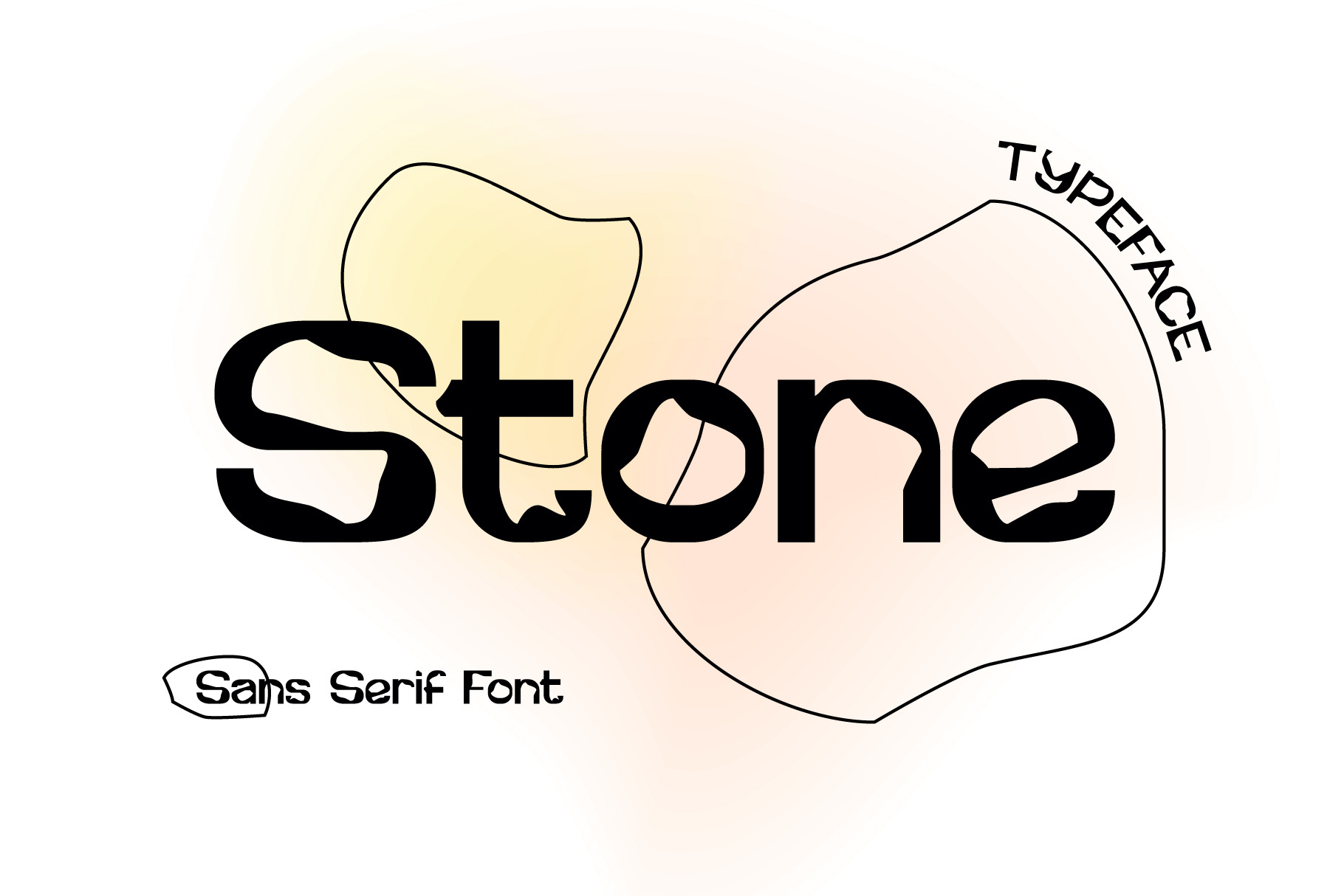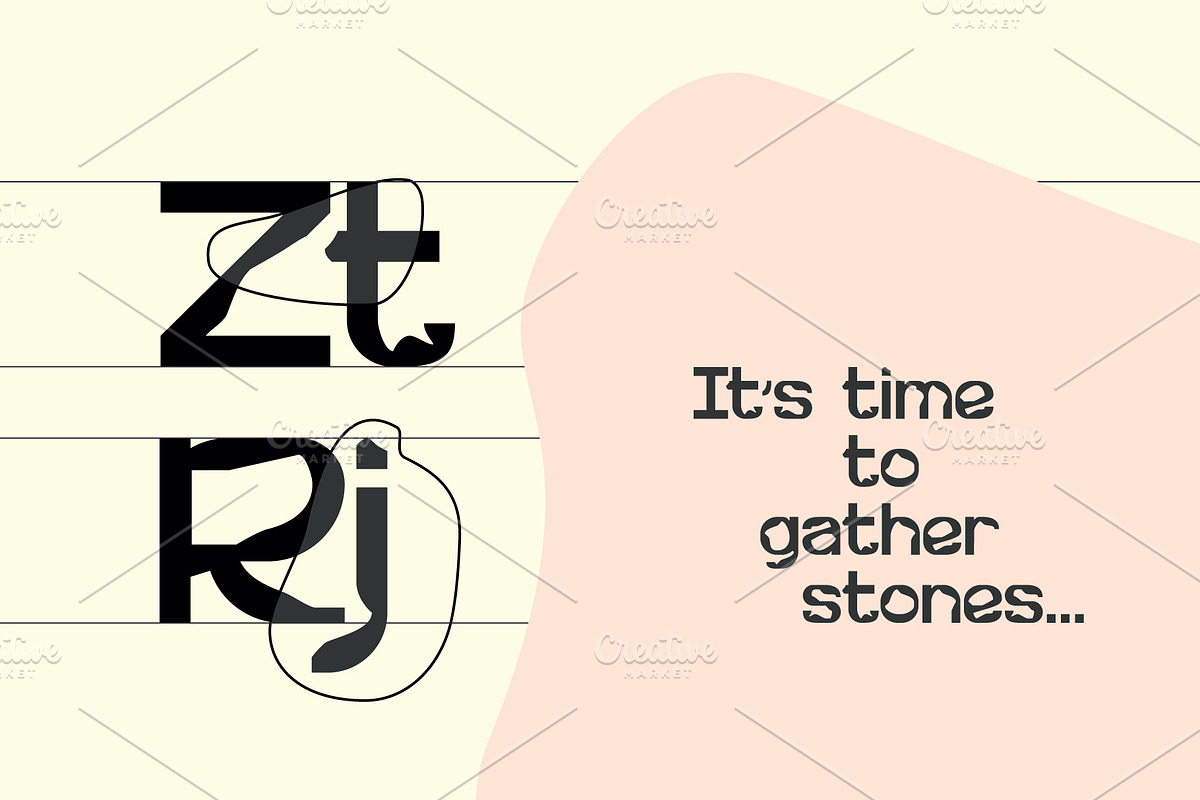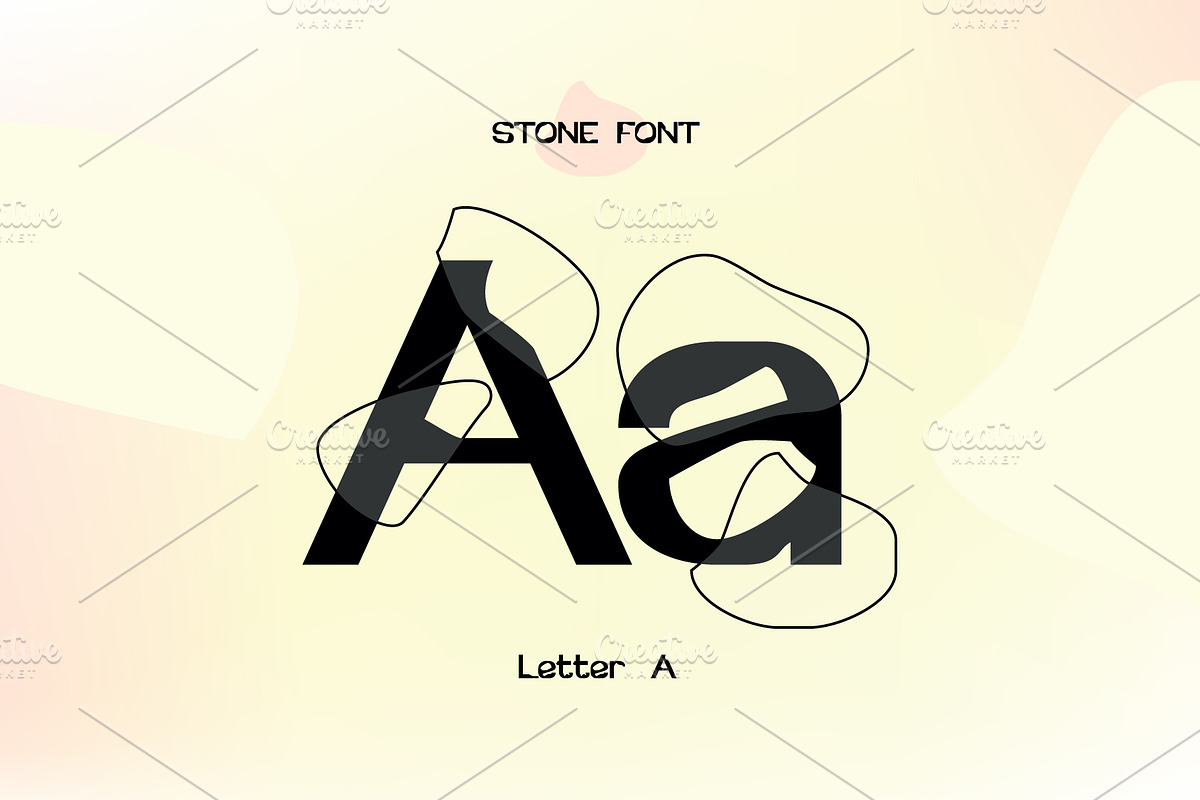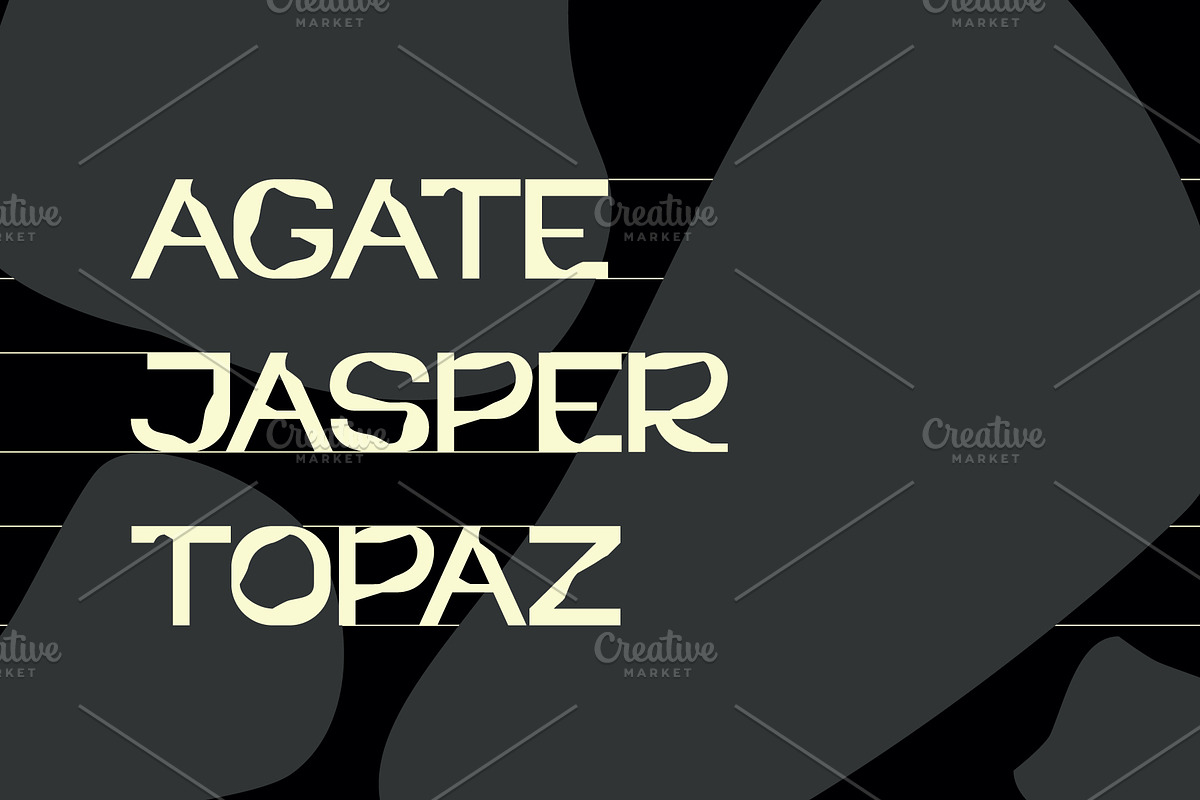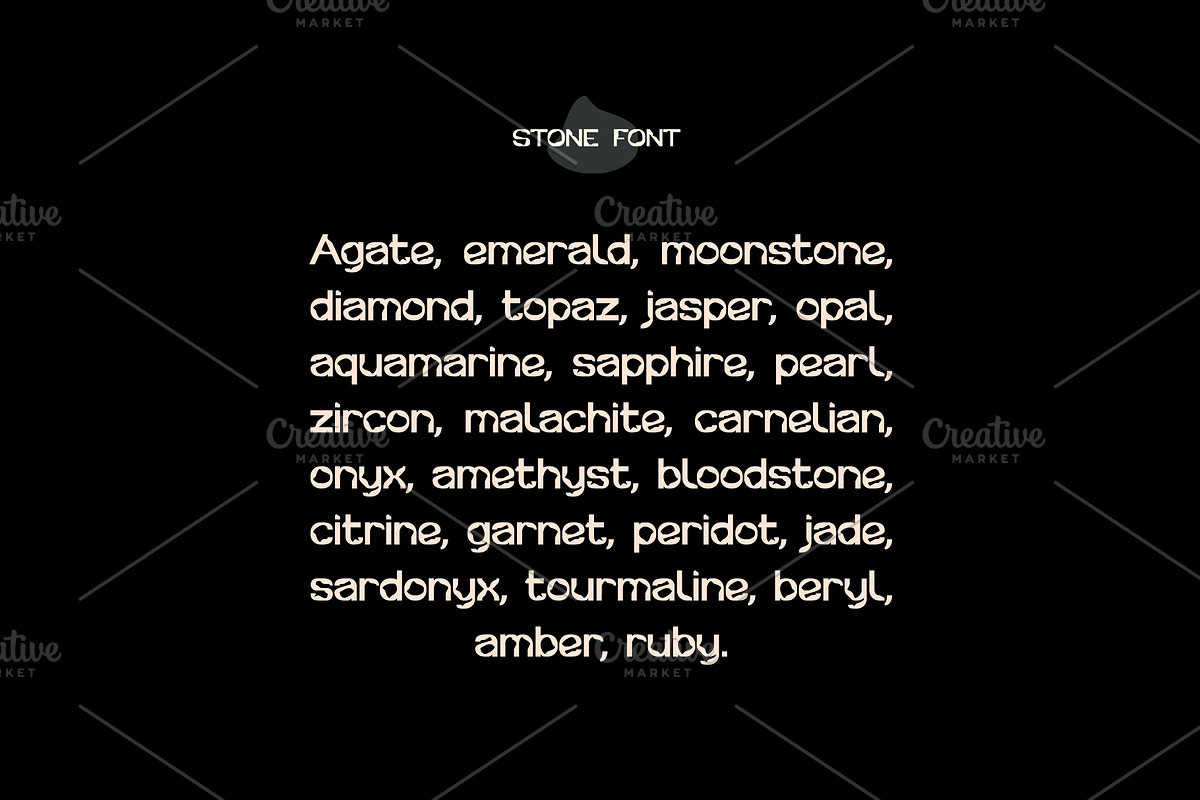
Stone Font
Stone Font - is a bold modern sans serif font, inspired by natural uniforms, where each does not look like another. Stone Font includes 2 fonts : Regular and Italic. This can be used as a display font, has expressive uppercase. Stone font works in any branding, logos, magazines, films. Also has a vector with stone shapes. If you have any questions about licensing, need help with a typeface, or would like to request a new feature, contact me.